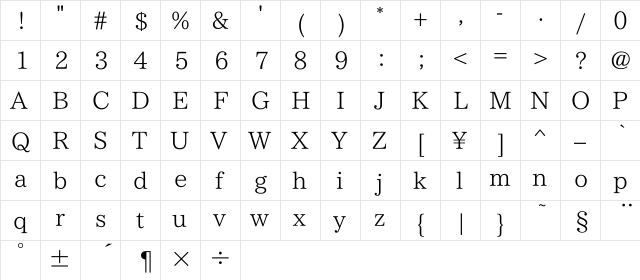
IPAPMincho Regular
Design Context for IPAPMincho Typeface
IPAPMincho is a composed and adaptable typeface that performs quietly and consistently across a wide range of design contexts.